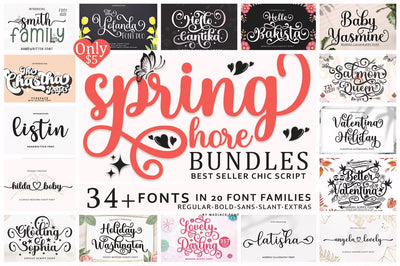
Font Spring Bundles
Introducing, Newest Seller of Spring Bundle Fonts
Create beautiful designs and crafts with this perfect font bundle!
This is your chance to get all my fonts for a very low price of $10! Includes 34 Fonts in 20 typography. This bundle includes various font styles like, calligraphy, signature, brush lettering, handwriting, and more. with hundreds of glyphs, including alternatives, straps, slashes, and international language support.